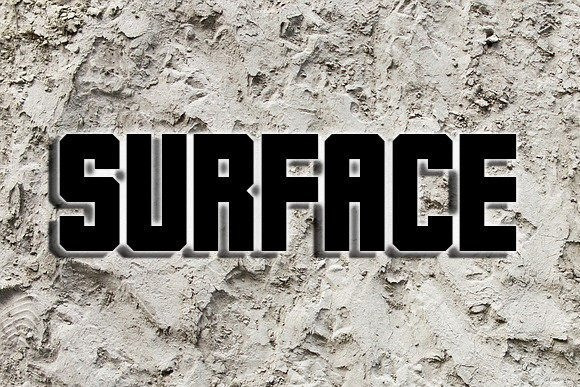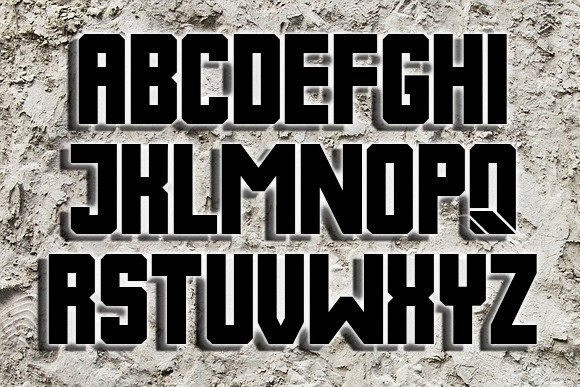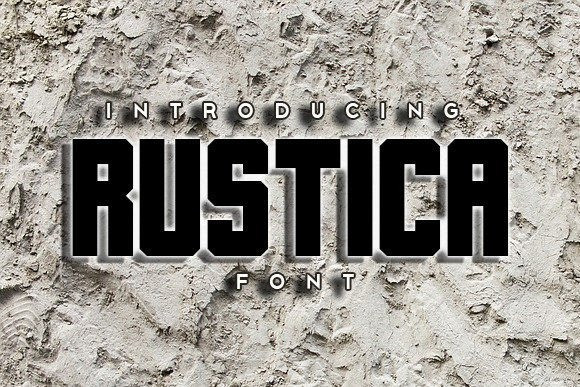
Rustica Font
Rustica Sans Serif Font is an awesome blocky typeface that will fit any of your designs.
Use this font on posters, flyers, and much more.